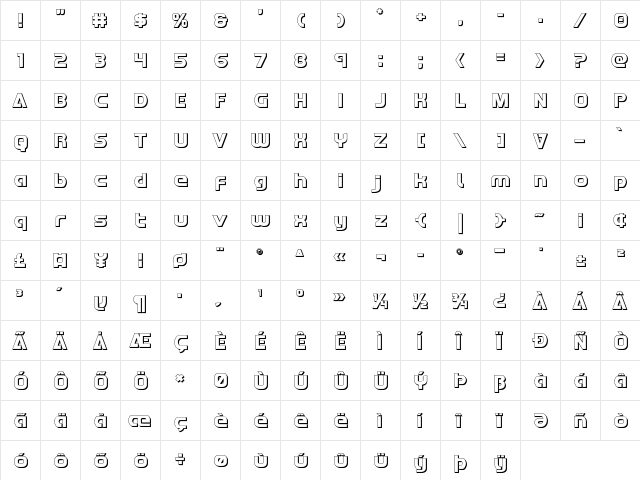
Redline 3D Regular
Design Context for Redline 3D Typeface
Redline 3D takes a measured approach to typography — its balanced proportions and neutral character make it a reliable workhorse for both digital and print work.